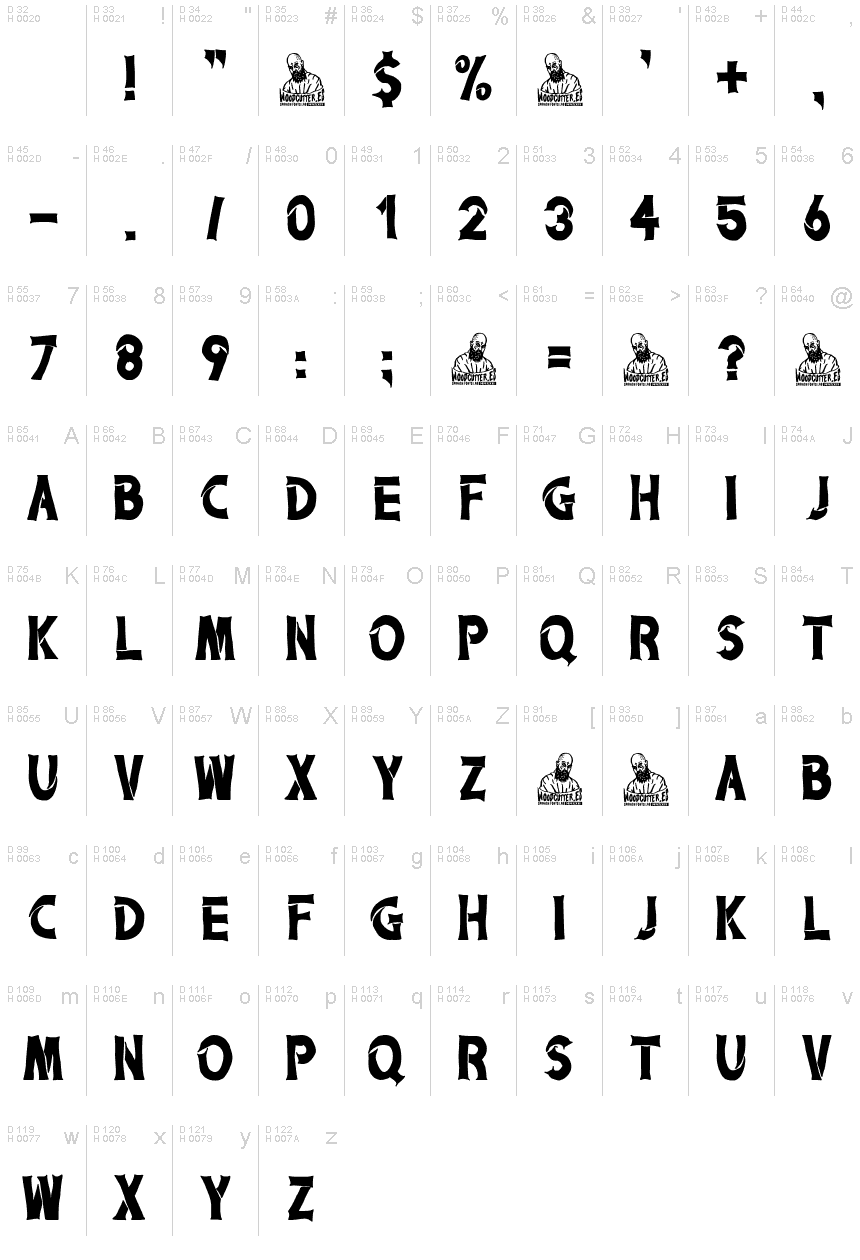
Gwendolyne
Gwendolyne, a mesmerizing display font designed by Woodcutter, exudes an aura of creativity and elegance. With its bold and decorative style, this font is perfect for a wide range of projects. Its captivating curves and intricate details make it ideal for branding luxurious fashion labels or creating eye-catching headlines on magazine covers. The versatility of Gwendolyne also makes it suitable for designing striking event invitations or crafting unique logos for innovative startups. Stand out from the crowd and let Gwendolyne lend a touch of sophistication to your next design endeavor.